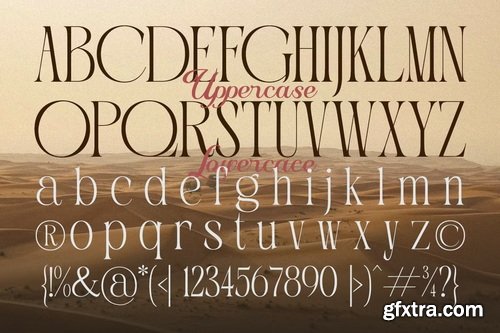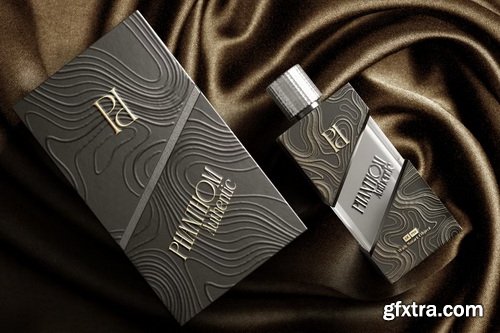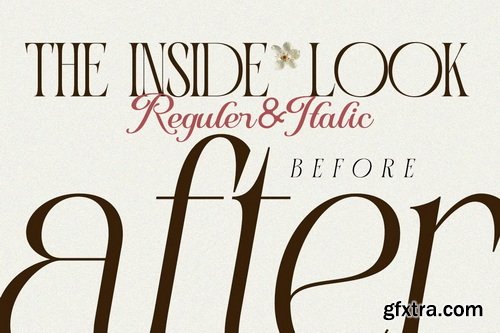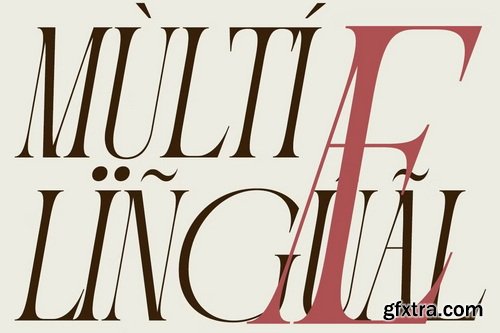
- Portiso is a modern luxury serif typeface designed to evoke prestige, class, and timeless sophistication. With its elegant letterforms, high contrast strokes, and finely crafted alternates, Portiso is your go-to choice for creating designs that demand attention and exude premium quality.
- Whether used in logos, branding materials, editorial layouts, or product packaging, Portiso elevates your message with a graceful yet powerful presence.